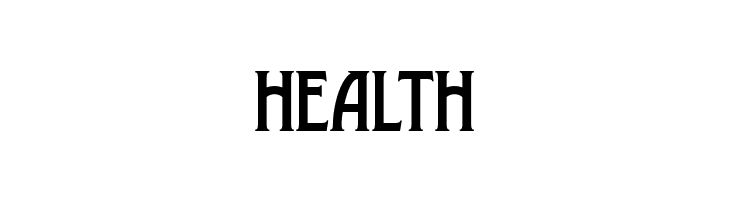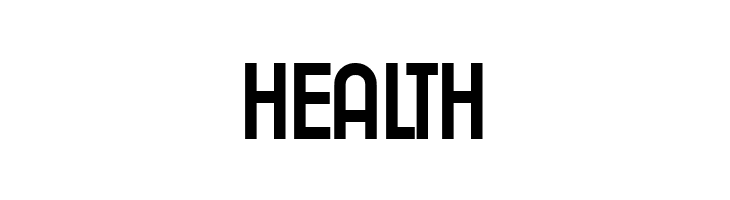
A bold, rounded font with a modern and clean style.
A bold, italic font with a modern and dynamic style, featuring rounded characters and a slightly condensed width.
A sleek, modern italic font with smooth, rounded edges and consistent stroke width.
A modern, bold, and italicized font with a sleek, condensed design.
A flowing, elegant script font with a natural handwriting style.
A bold, angular serif font with a modern twist and strong visual impact.
An elegant, flowing script font with smooth, cursive strokes and graceful curves.
A bold, geometric sans-serif font with a modern and clean design.
An elegant script font with intricate swirls and flowing lines.
An elegant script font with intricate swirls and high contrast, perfect for formal and decorative use.